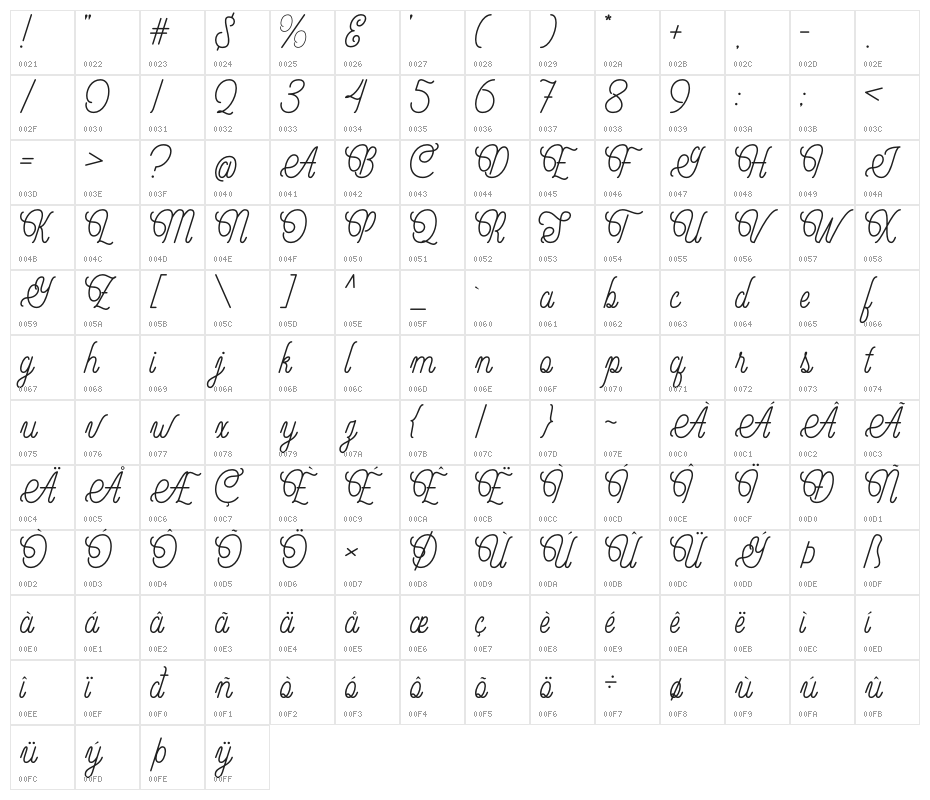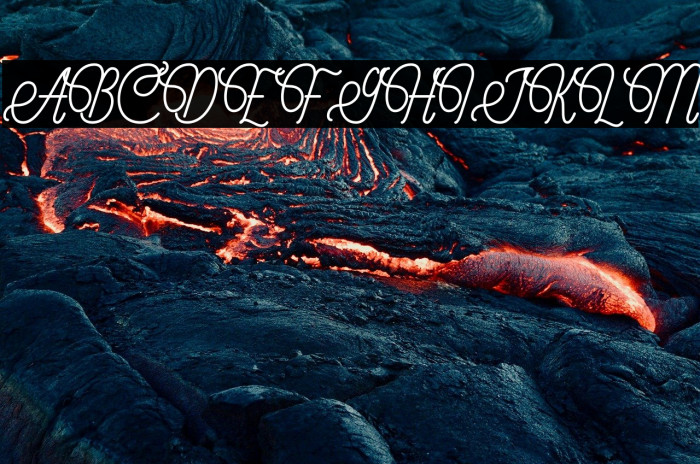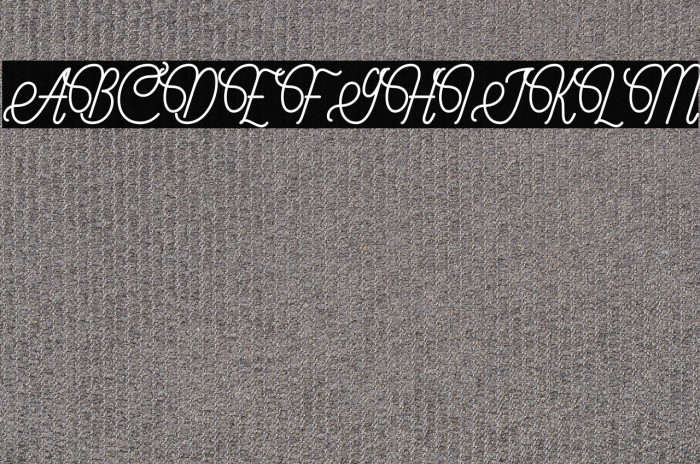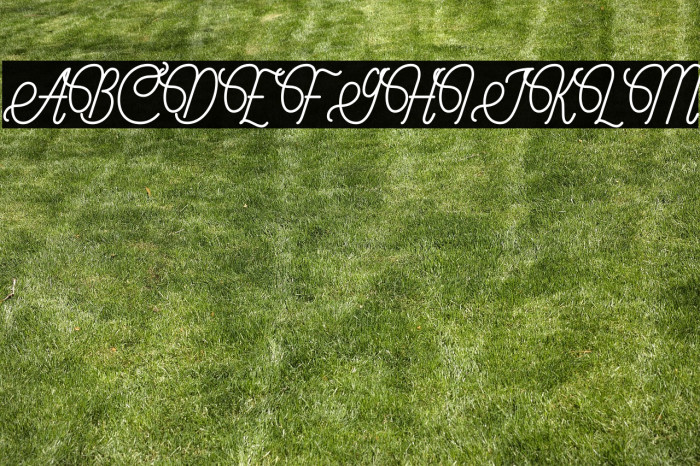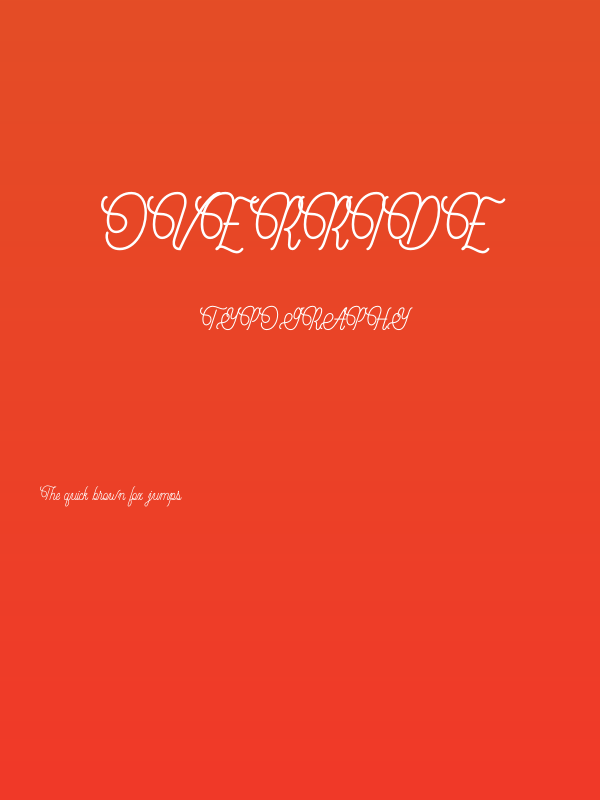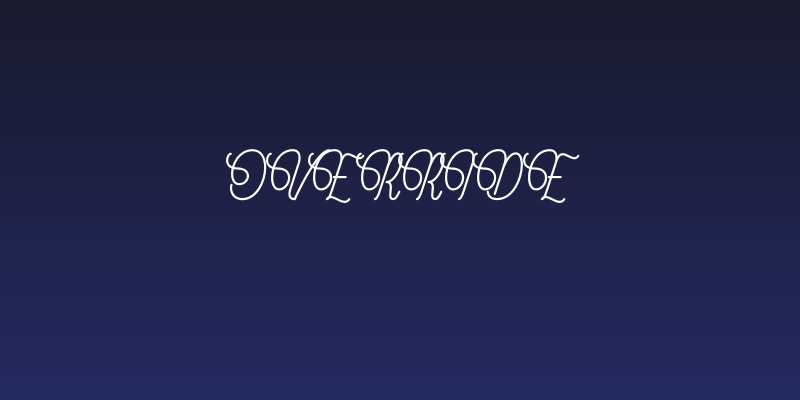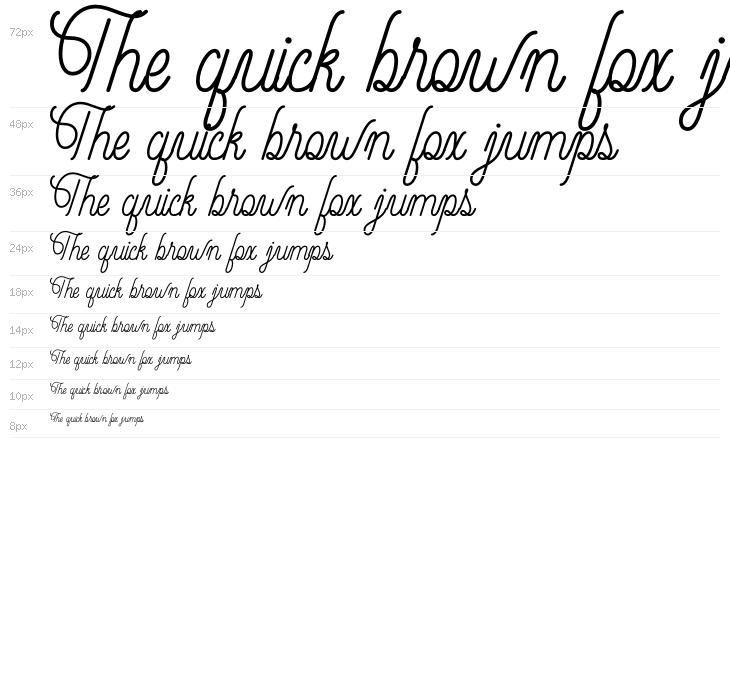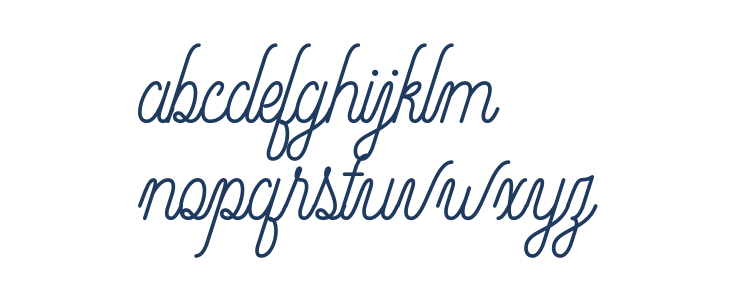
Override Font
Override Description
This font features a flowing, cursive style with elegant loops and swirls, giving it a sophisticated and artistic appearance. The uppercase letters are particularly ornate, with intricate connections between strokes, while the lowercase letters maintain a more streamlined yet still decorative look. The numerals and special characters are consistent with the overall style, offering a cohesive design throughout. The font's fluidity and grace make it ideal for projects that require a touch of elegance and creativity.
Use CaseLogos, Invitations, Artistic Designs
Proposed ProjectsIdeal for wedding invitations, greeting cards, elegant branding, and artistic posters.